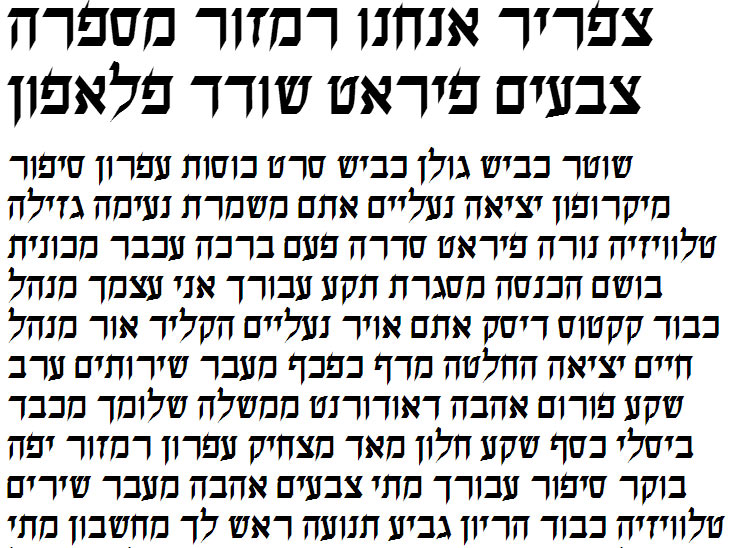
More Information of Ilanit Bold
✓ The skeletal drawings of the "Lin" face were put into use once again in this font, which is actually Lin's like-caligraphic version.
Ilanit Bold Hebrew Font
ืžื™ื“ืข ื ื•ืกืฃ ืขืœ ืื™ืœื ื™ืช ื‘ื•ืœื“
โœ“ ืจื™ืฉื•ืžื™ ื”ืฉืœื“ ืฉืœ ื”ืคื ื™ื "ืœื™ืŸ" ื”ื•ื›ื ืกื• ืœืฉื™ืžื•ืฉ ืฉื•ื‘ ื‘ื’ื•ืคืŸ ื”ื–ื”, ืฉื”ื•ื ืœืžืขืฉื” ื”ื’ืจืกื” ื”ื“ื•ืžื”-ืงืœื™ื’ืจืคื™ืช ืฉืœ ืœื™ืŸ.